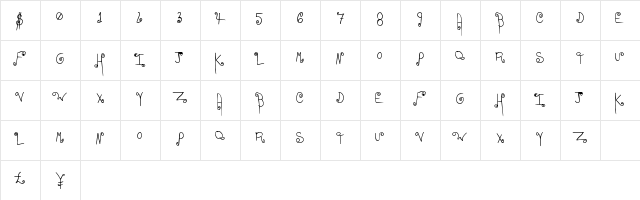
EasyRomance Regular Font Preview
EasyRomance Regular
EasyRomance Regular Font Details
| Foundry | Xerographer Fonts |
| Designer | Xerographer Fonts Max Infeld |
Design Context for EasyRomance Typeface
EasyRomance is a composed and adaptable typeface that performs quietly and consistently across a wide range of design contexts.